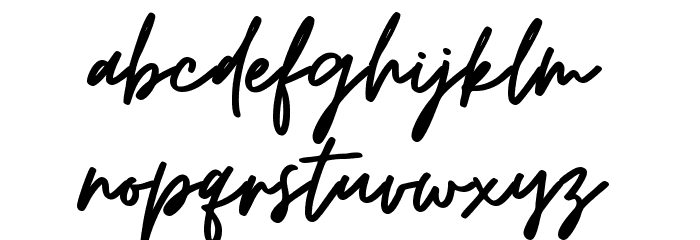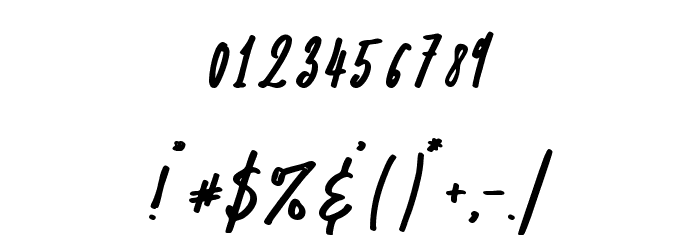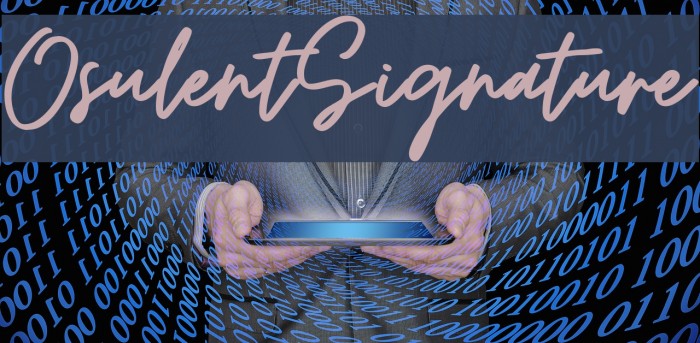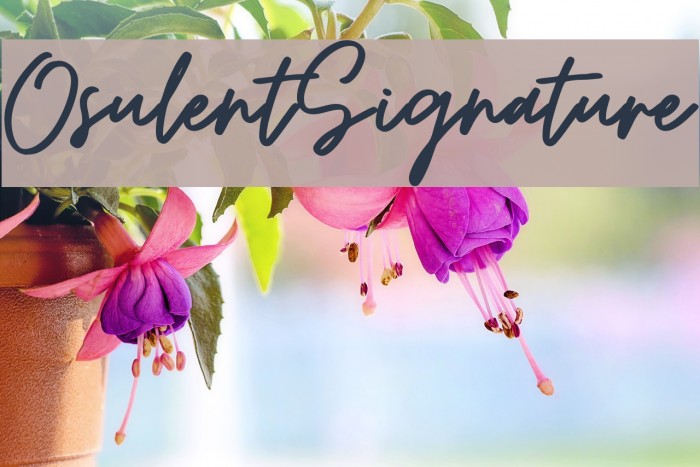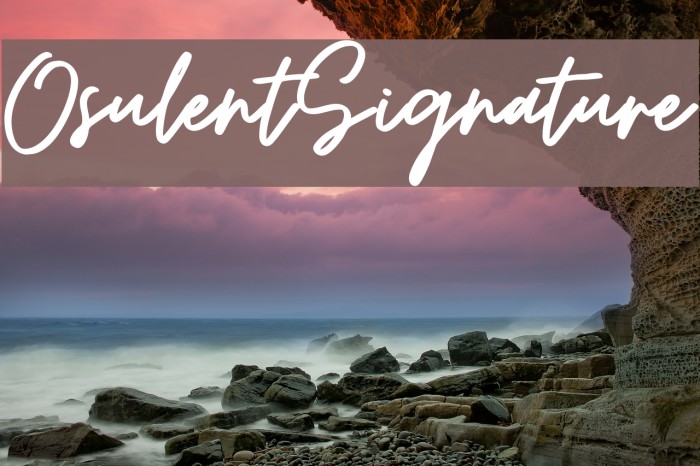
OsulentSignature Font
This font exudes a handwritten charm with its fluid, cursive style. The letters are elegantly connected, mimicking the natural flow of a signature. The uppercase letters are bold and slightly slanted, while the lowercase letters maintain a consistent rhythm, enhancing readability. The numbers and special characters are crafted with the same attention to detail, ensuring a cohesive look across all text. This font is perfect for adding a personal touch to any project, offering a sense of sophistication and warmth.
A fluid, cursive handwritten font with a signature-like style.
- Proposed Projects: Ideal for branding, invitations, greeting cards, and personal projects where a handwritten touch is desired.
- Use Case: Logos, Invitations, Personal branding